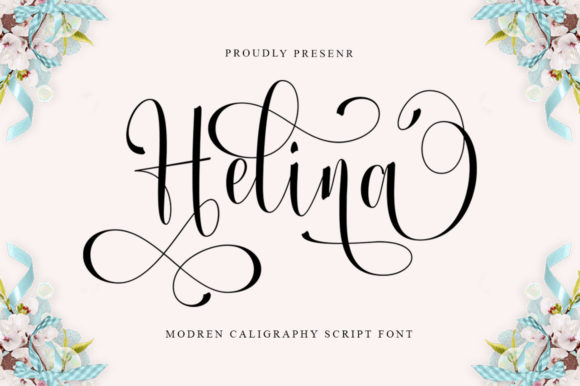
Introducing Helina Duo Font: Elevate Your Crafts with Chic and Cheery Typography
In the world of crafting, whether you’re designing greeting cards, creating custom invitations, or producing engaging digital content, the right typography can make all the difference. Fonts have the power to convey emotions, set the tone, and add a personal touch to your projects. Among the myriad of fonts available, the Helina Duo Font stands out as a versatile and stylish choice, designed to bring a chic and cheery vibe to your crafts. In this article, we’ll dive deep into the features of the Helina Duo Font, explore its benefits, and discuss how it can become an essential part of your creative toolkit.
What is Helina Duo Font?
Helina Duo Font is a thoughtfully designed font duo that consists of two complementary fonts. These fonts are crafted to work harmoniously together, yet they are also versatile enough to stand alone in various design projects. The duo’s design focuses on providing a fresh, modern look that can instantly uplift the aesthetic of your crafts.
Key Features of Helina Duo Font
- Complementary Design: The two fonts in the Helina Duo are specifically designed to complement each other. This means you can use them together for a cohesive look or switch between them to add variety to your designs.
- Chic and Cheery: The fonts boast a chic aesthetic with a cheerful vibe, making them perfect for projects that require a touch of elegance and positivity.
- PUA Encoded: Helina Duo Font is PUA (Private Use Area) encoded. This encoding allows for easy access to all glyphs and swashes, providing you with a wide range of design possibilities without the need for additional technical expertise.
- Versatility: Whether you’re working on digital projects, printables, or handmade crafts, Helina Duo Font adapts seamlessly, ensuring your designs look great across different mediums.
Crafting Ideas with Helina Duo Font
The versatility of Helina Duo Font makes it suitable for a wide array of crafting projects. Here are some ideas to get you started:
- Greeting Cards: Add a personal touch to your greeting cards for birthdays, holidays, or special occasions with the elegant and cheerful script of Helina Duo.
- DIY Invitations: Create custom invitations for parties, weddings, or baby showers that reflect your unique style.
- Digital Planners and Journals: Enhance your digital planners or printable journals with a stylish font that makes writing and reading a delight.
- Social Media Graphics: Elevate your social media posts with custom graphics that incorporate the Helina Duo Font for a professional yet friendly look.
- Handmade Crafts: From scrapbooking to crafting custom vinyl decals, Helina Duo Font can add a personalized and sophisticated element to your projects.
Benefits of Using Helina Duo Font
Choosing the right font for your projects can significantly impact their overall success. Here are some benefits of incorporating Helina Duo Font into your crafting routine:
- Time-Saving: With its PUA encoding and extensive glyph library, you can access a wide range of characters and swashes without having to spend extra time searching for the right symbols.
- Consistency: The complementary nature of the two fonts ensures consistency across your projects, making it easier to build a recognizable brand or aesthetic.
- Emotional Connection: The cheerful and chic vibe of Helina Duo Font can help create an emotional connection with your audience, making your crafts more engaging and memorable.
- Easy to Use: Whether you’re a professional designer or a crafting novice, Helina Duo Font is easy to use and integrate into your projects, requiring no advanced design skills.
Tips and Tricks for Maximizing Helina Duo Font
To get the most out of Helina Duo Font, consider the following tips:
- Experiment with Pairings: Don’t be afraid to try out different pairings of the two fonts within the duo. Sometimes, the best combinations come from unexpected places.
- Play with Sizes and Colors: Varying the size and color of your text can add depth and interest to your designs. Use contrasting colors to make your text pop.
- Utilize Swashes and Glyphs: Take advantage of the PUA encoding to explore the range of swashes and glyphs available. These can add a decorative touch to your projects.
- Mix with Images: Combine text with images or graphics for a more dynamic look. Helina Duo Font pairs well with both simple and intricate backgrounds.
Helina Duo Font offers a perfect blend of style, versatility, and ease of use, making it an excellent addition to any crafter’s toolkit. Whether you’re looking to add a touch of elegance to your greeting cards, create eye-catching social media graphics, or simply explore new typography options, Helina Duo Font is up to the task. Its chic and cheery vibe, coupled with the convenience of PUA encoding, ensures that your projects stand out in a crowd. So, why settle for ordinary when you can make your crafts extraordinary with Helina Duo Font?